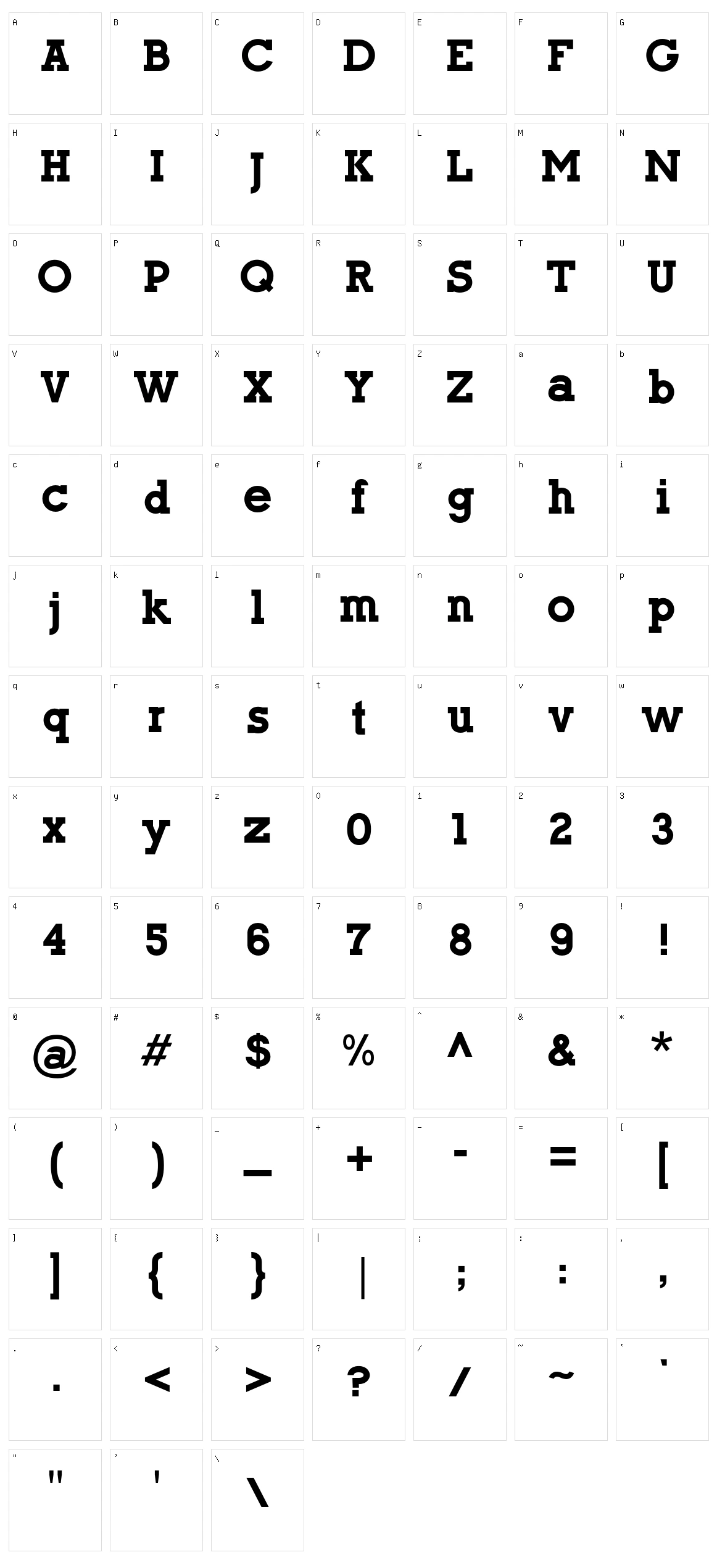
The free font Onefifth is carefully designed by Ekkehard Beck, showcasing a thoughtful balance of creativity and usability and falls under the Serif font style. When you download the ZIP file, it contains only 24 KB of font files, making it lightweight and quick to download. Please review the license details below to understand permitted usage and distribution rights. If license information is not available, we recommend using this font for personal projects only or contacting the author directly for commercial usage permissions.